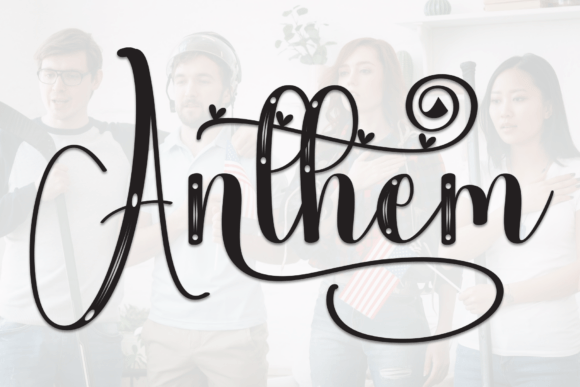
The Perfect Script for Your Creative Heart
You know that moment when you’re brainstorming ideas for a new project, and suddenly, a beautiful concept emerges? For designers, that spark of creativity can be the starting point of something truly special. As you dive into the design process, the right font can make all the difference. That’s where the Boho Heart Font comes in – a chic, delicate script font that exudes sophistication and elegance.
Whether you’re working on a wedding invitation, a fashion blog, or a luxury brand’s marketing materials, the Boho Heart Font is the perfect match for any project. Its stylish alternates and ligatures give you endless possibilities to create unique and eye-catching designs. As a designer, you’ll appreciate the versatility and beauty of this font, making it an invaluable addition to your toolkit.
Key Features of Boho Heart Font
• Unique Characteristics: The Boho Heart Font is a hand-drawn, cursive script font that features a mix of elegant and whimsical elements. It is perfect for creating a bohemian or vintage-inspired design.
• Language Support: The font supports a wide range of languages, including English, Spanish, French, German, Italian, and many others, making it a great choice for international designs.
• Font Style: The font comes in 2 different styles: Regular and Bold, allowing designers to create a range of effects and contrast in their designs.
Designer Review: Boho Heart Font
I was excited to dive into the Boho Heart Font, and overall, I think it’s a lovely addition to any design project. ✨ Here are a few things that really work well:
• Unique and eclectic feel: The Boho Heart Font has a distinct, free-spirited vibe that’s perfect for capturing the essence of bohemian-inspired designs.
• Expressive letterforms: Each letter is carefully crafted with flair, giving the font a playful, handwritten feel.
• High-quality glyphs: The font includes a wide range of glyphs, from basic Latin characters to more exotic symbols.
• Limited font sizes: The font may not be suitable for very large or very small text sizes, as the letterforms can become distorted.
• No bold or italic weights: The font is only available in regular weight, which may limit its versatility in certain design applications.
• Some characters may require manual tweaking: A few characters, such as the ampersand, may require manual adjustment to achieve the desired look.
Overall, I think the Boho Heart Font is a great choice for designers looking to add a touch of whimsy and personality to their projects. While it may have some limitations, its unique charm and high-quality glyphs make it a worthwhile addition to any font collection.
Some popular use cases for the Boho Heart Font include:
– Social media graphics and quotes
– Handmade product labels and packaging
For best results, use the Boho Heart Font in conjunction with other bohemian-inspired design elements, such as florals, lace, and distressed textures.